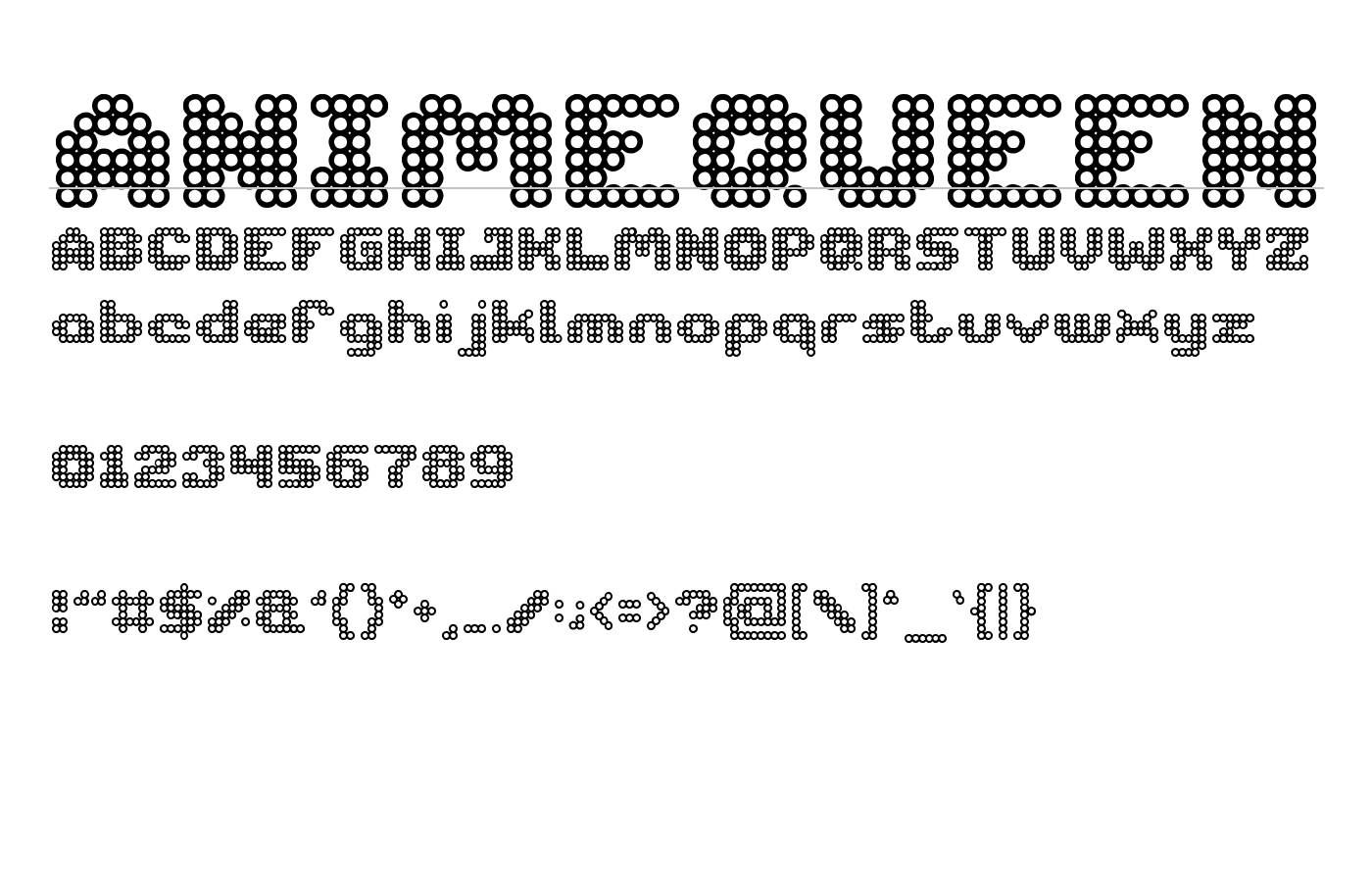
ANIMEQUEEN is a playful and modern display font made entirely of small circular dots forming each letter and character. Its rounded, geometric style gives it a light and quirky personality, making it perfect for fun, youthful branding or eye-catching headlines. This font works best in creative projects, posters, and digital designs where a unique and lively aesthetic is desired.
ANIMEQUEEN Font
About ANIMEQUEEN Font